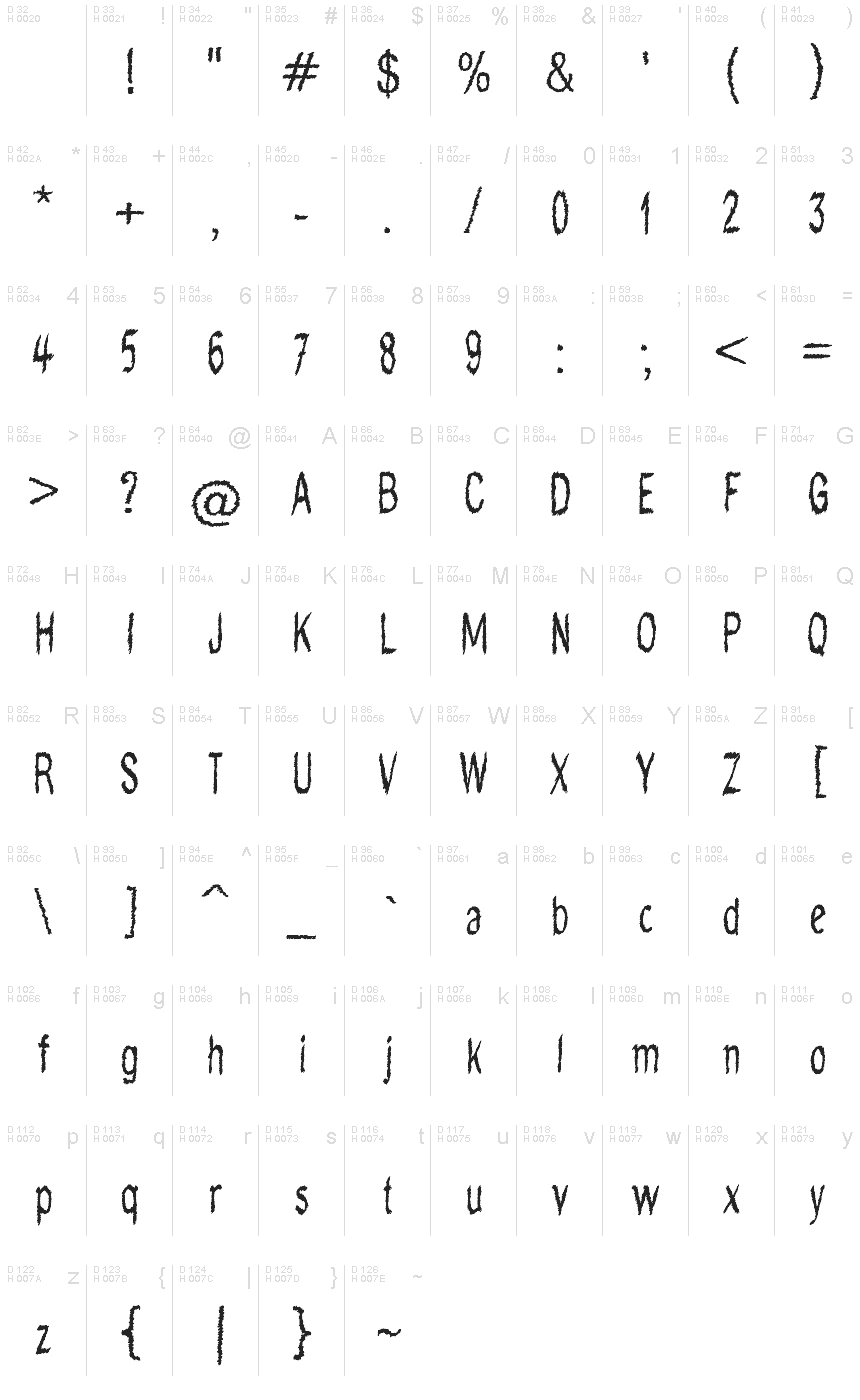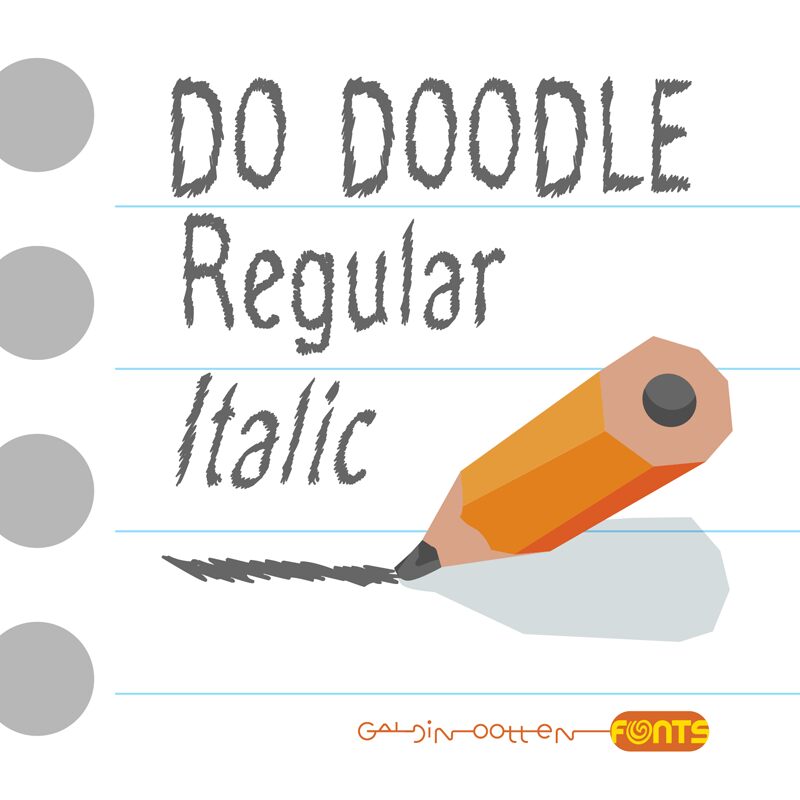
Do Doodle
Do Doodle font is a graffiti-inspired free brush font by Galdino Otten Fonts. It has a strikingly textured appearance made of rich details and imperfections that contribute to its edgy look. If sketchbooks, comics, or caricatures are some words that come to mind when you see the font, then you are visualizing its informal aesthetic correctly. The condensed font is sure to grant any design it’s used in a contemporary urban vibe.
The prominent uses of this brilliant font include logos, posters, apparel designs, presentation works, brochure headings, CD artwork covers for artists/bands/albums/collections as well as books and magazine covers. It can also be used in social media posts and advertisements for the web which makes the reach of its use undeniable.